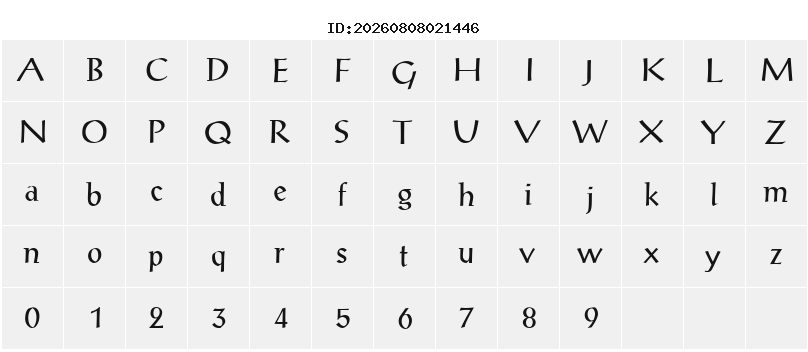
ProseAntique Preview
• Font Name: ProseAntique
• Font ID: ProseAntique Plain
• Full Font Name: ProseAntique
About ProseAntique.ttf
ProseAntique.ttf is a modern, elegant sans-serif font designed for ultimate readability and visual harmony. Perfect for branding, headlines, web design, and print materials.